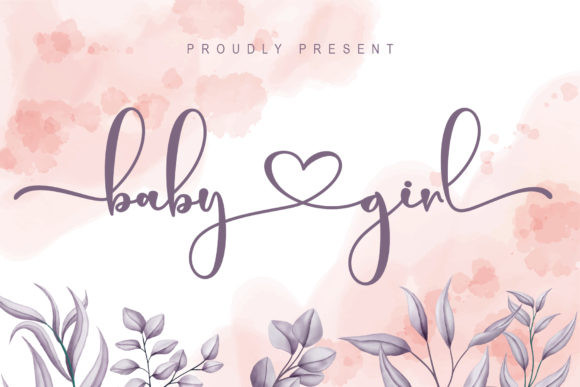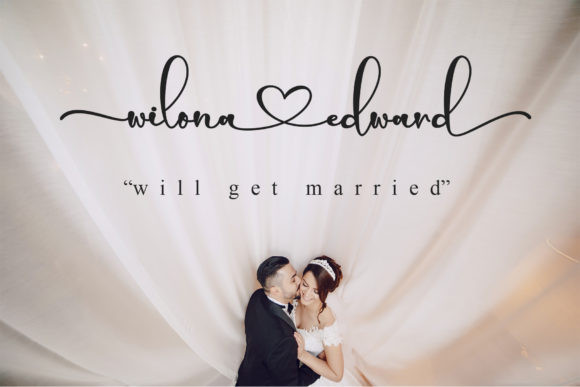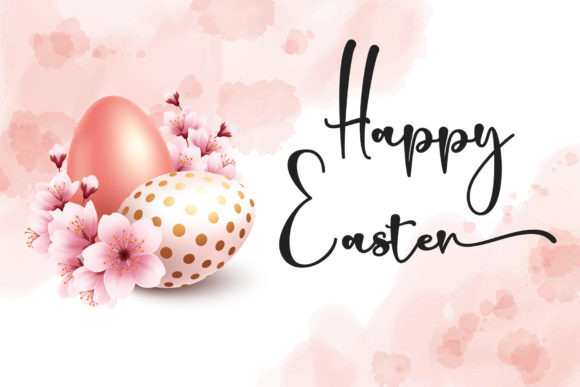
Baby Girl Font
Baby Girl FontBaby Girl is an stylish handwritten font. This flexible script font has a wide spectrum of applications ranging from greeting cards to headlines and is guaranteed to add a delicate feel to your next project.